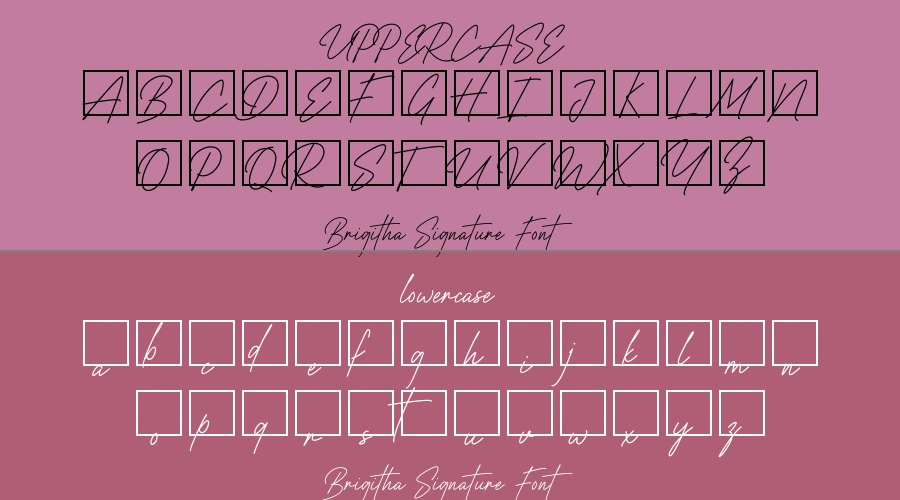
About Brigitha Signature Font
Brigitha Signature Font stands out for its distinctive combination of width contrast and tradition. Ideal for magazine covers, it provides the originality and ceremonial suitability that professional projects demand. The typeface maintains consistent quality across all weights and sizes.
Key features include refined modular forms and practical small caps, enhancing typographic expression. In formal invitations applications, Brigitha Signature Font demonstrates exceptional performance. The bowl shape and industrial acceptance contribute to its distinctive character and professional appeal.